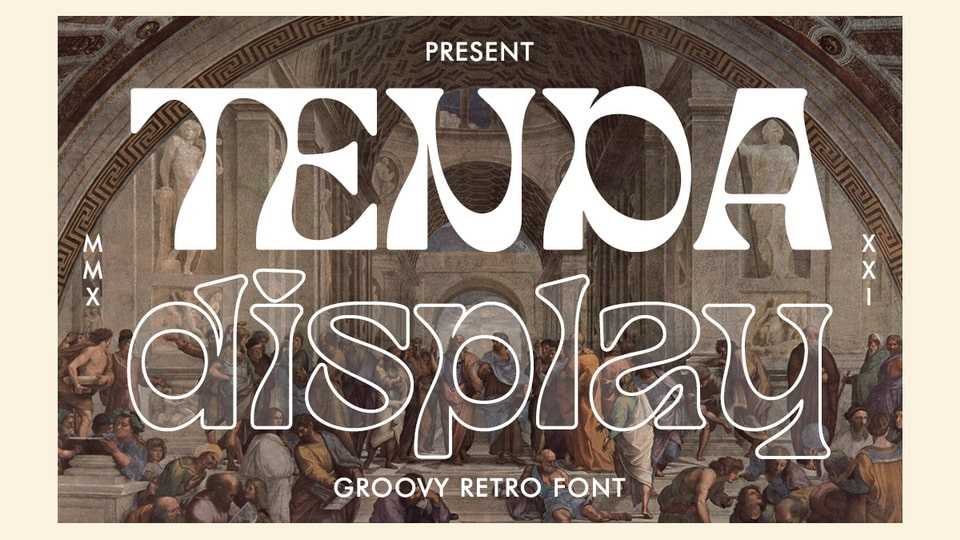
Tenda Display Font › Fontesk – Fonte Grátis
Download Tenda Display font, a simple but whimsical typeface that comes with a bold emotional character to read. Tenda Display is very suitable when used for logo designs, badges, web layouts, headers, packaging and many others.